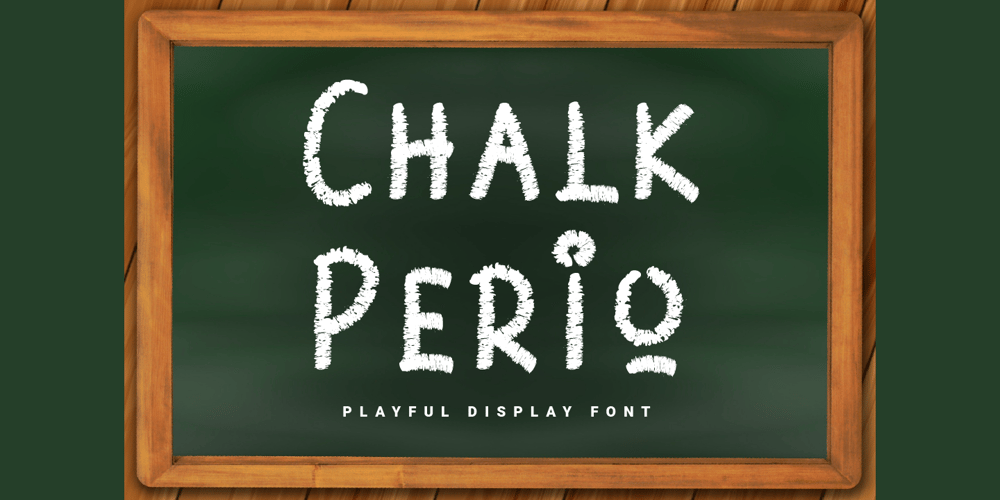
Chalk Perio Font Family was designed by Prio Nurokhim Aji and published by Prioritype. Chalk Perio contains 1 styles and family package options. Introducing a new font that is unique, cute and textured like chalk. You can apply this font in projects such as packaged products, crafts, video previews, food products, logos, clothes, food menus, quotes and much more to explore. To see a few examples of the preview above.Features:-Uppercase-Lowercase-Numeral-Punctuation-MultilingualThanks.